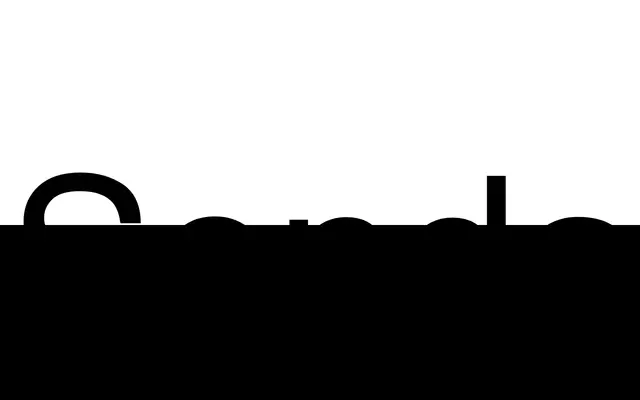
Sonda
A rounded neo-grotesque by Ondrej Jób spanning eight weights from Hair to Black, with low contrast and softened terminals suited to both text and display use.
Eight weights from Hair to Black give Sonda a broad range for both editorial and UI contexts, with rounded terminals and low contrast lending the family a friendly, approachable tone. Support extends across Basic Latin and Extended Latin for over 100 languages, while 521 glyphs include superscript, subscript, fractions and a slashed zero. Stylistic sets and standard and discretionary ligatures allow for customisation across different setting contexts.
Described explicitly as a neo-grotesque with rounded terminals, low contrast and medium x-height, placing it firmly in the neo-grotesque subcategory with a playful, softened character.